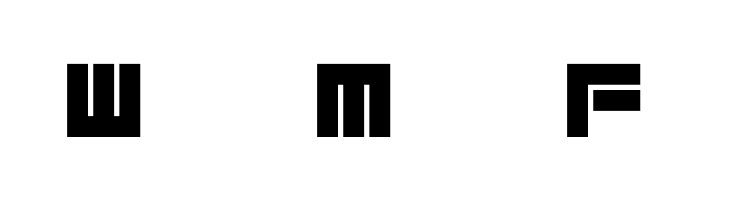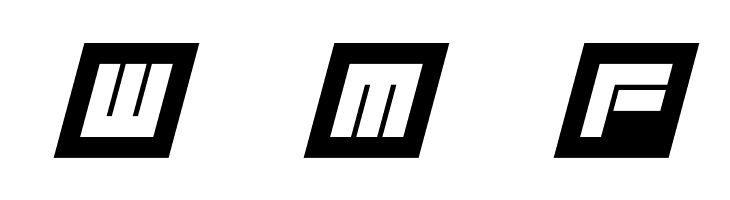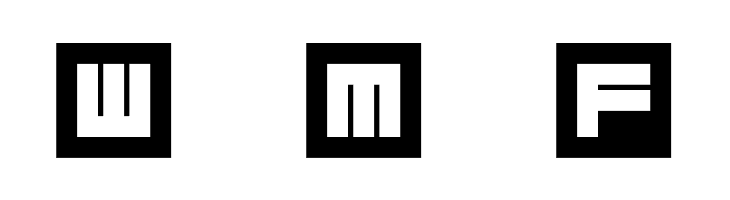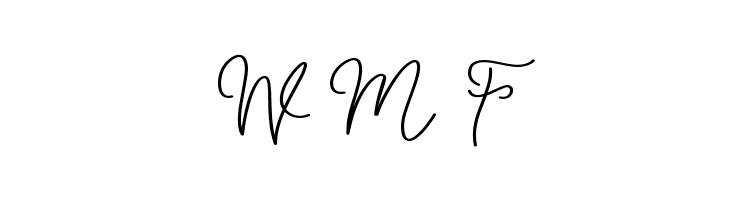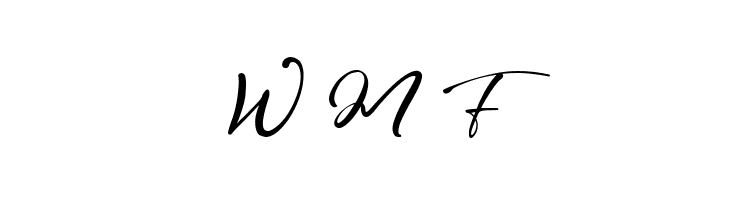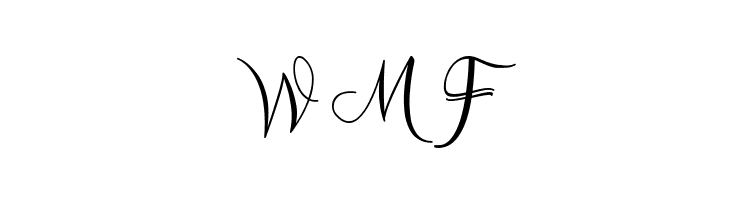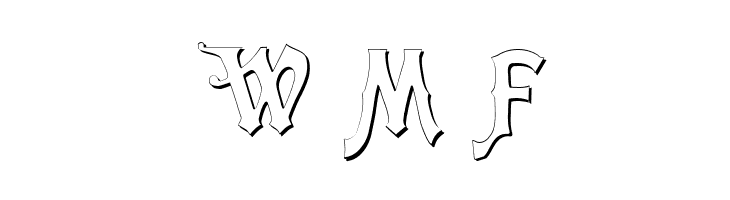
• Megastructure
• Megastructure Italic
A bold, angular, and futuristic italic font with a dynamic, geometric design.
• Megatech
A bold, geometric font with a futuristic, tech-inspired design.
• Megatech Alt Bold
A bold, futuristic font with geometric shapes and a tech-inspired aesthetic.
• Megatech Alt Italic
A bold, geometric, and italic font with a futuristic style.
• Megatech Italic
A bold, geometric, and italicized font with a futuristic style.
• Meistersinger Shadow
A bold, shadowed font with sharp serifs and a three-dimensional effect.
• Mekhasant
An elegant script font with flowing, cursive lines and intricate swashes.
• Melinda Johan
A cursive, handwritten font with elegant, flowing letters.
• Mellyna
A graceful and elegant handwritten cursive font with flowing letterforms.